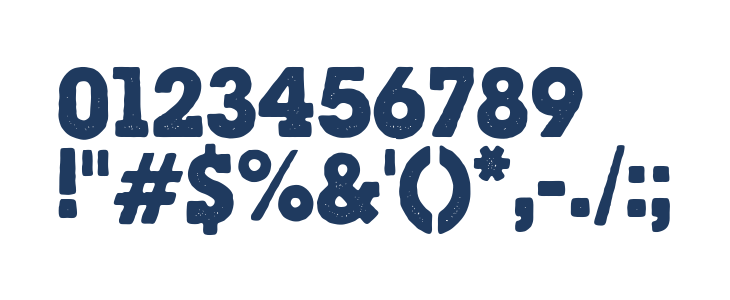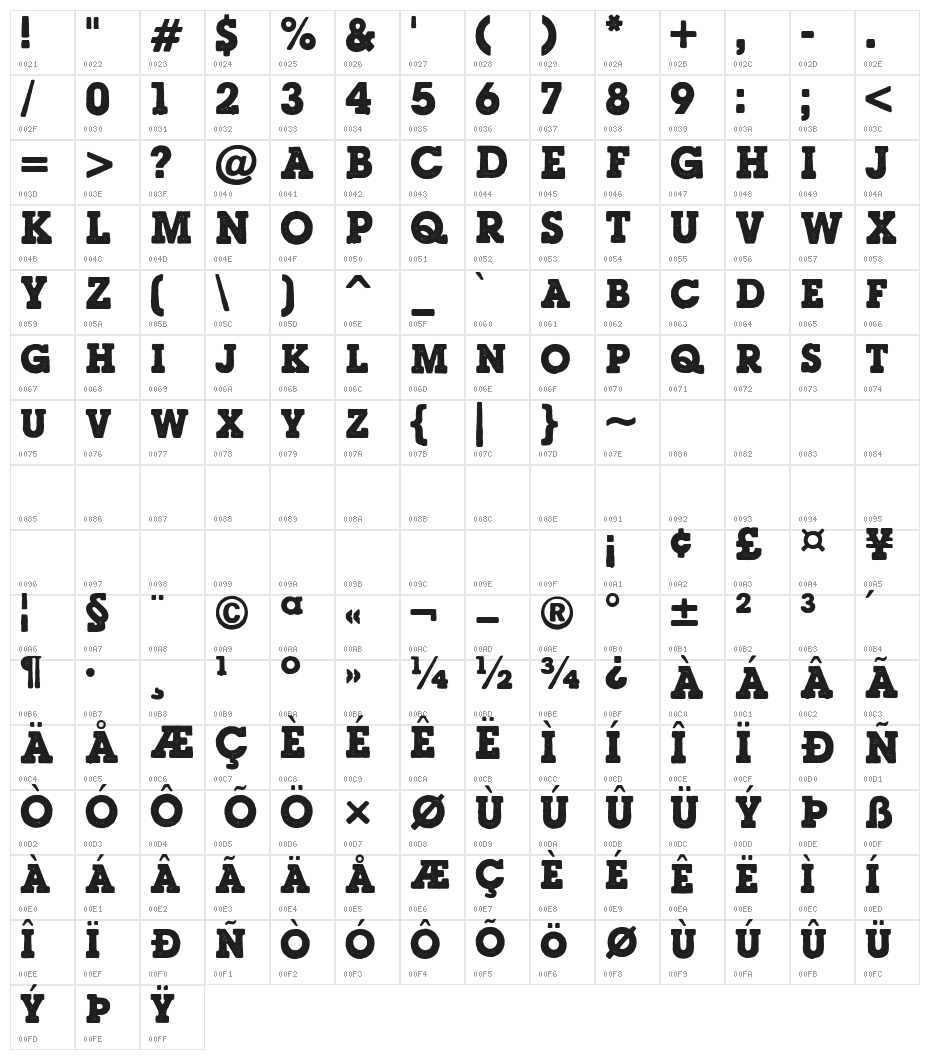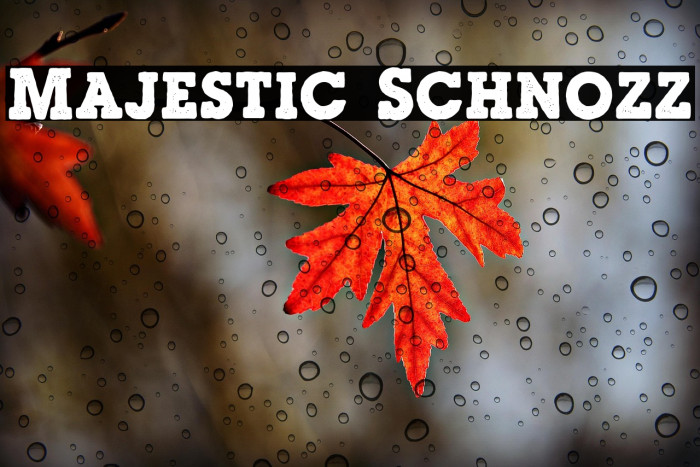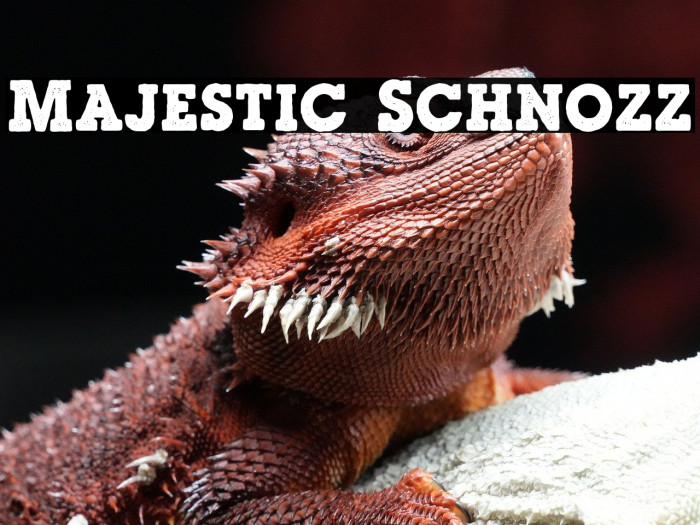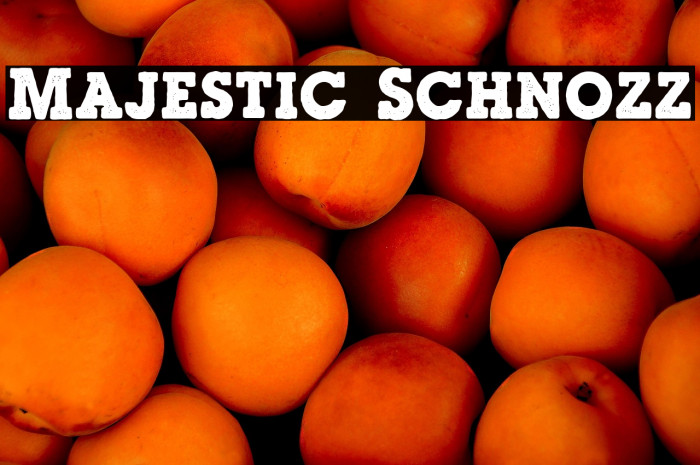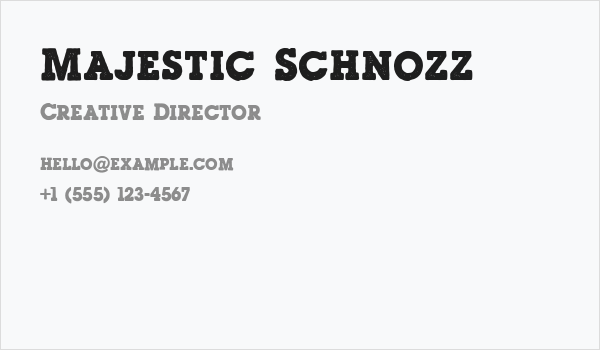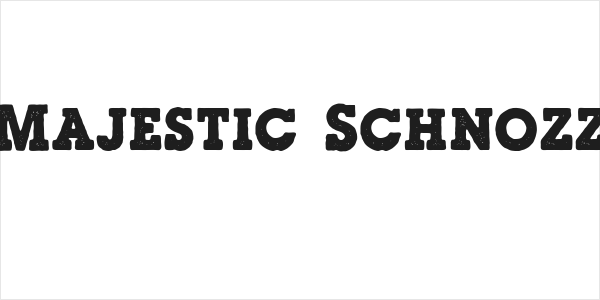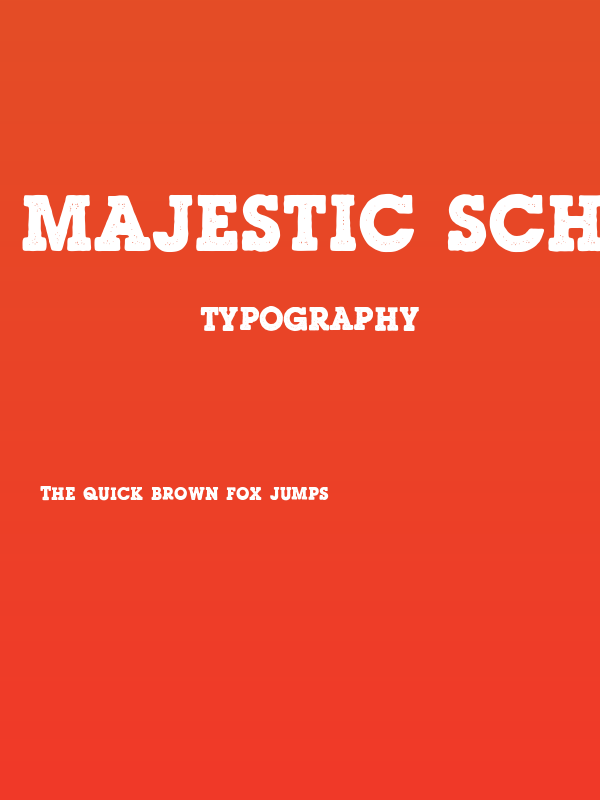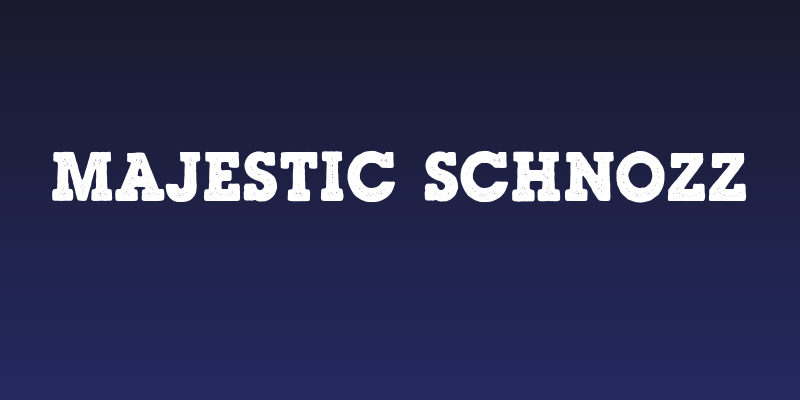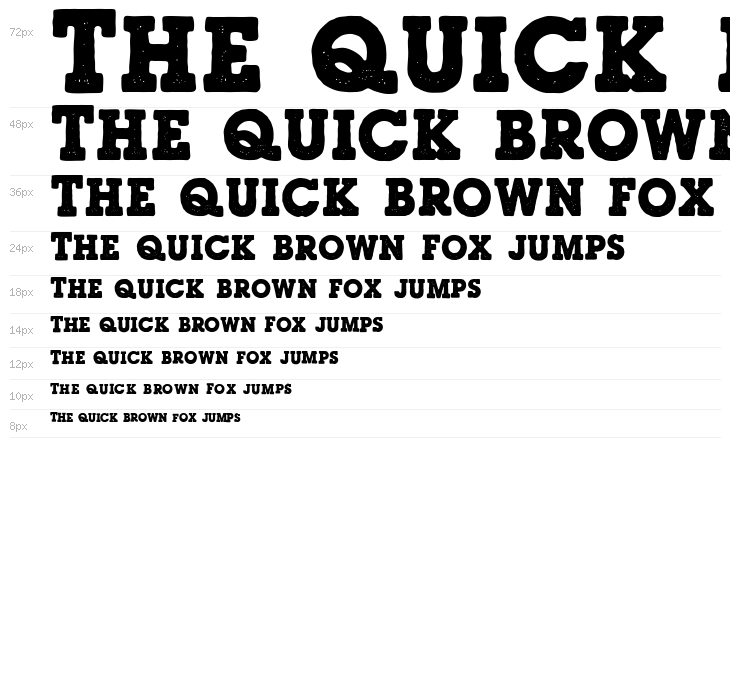
Majestic Schnozz Font
Majestic Schnozz Description
This font exhibits a bold and robust character with a distinct vintage flair. The letters are thick and blocky, featuring a textured appearance that adds a sense of depth and dimension. The uppercase and lowercase characters maintain a consistent weight, contributing to a cohesive and unified look. The numerals and special characters follow the same stylistic approach, ensuring versatility across different types of content. The font's boldness and unique texture make it stand out, ideal for projects that require a strong visual impact.
| Proposed Projects | Ideal for poster design, branding, packaging, and any project that requires a bold, vintage aesthetic. |